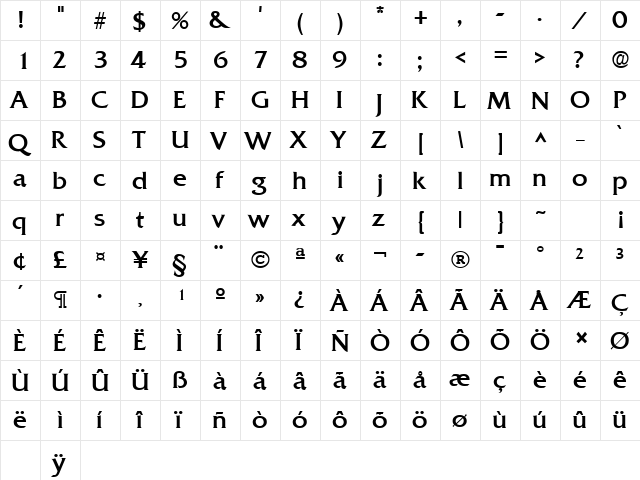
Quadrat Bold
Design Context for Quadrat Typeface
Quadrat takes a measured approach to typography — its balanced proportions and neutral character make it a reliable workhorse for both digital and print work. Its bold stroke weight gives it real presence on the page.
Pro Tip: Pair Quadrat with a font of contrasting weight or personality to build a more expressive typographic hierarchy.